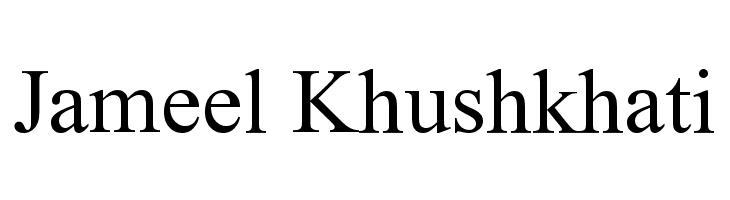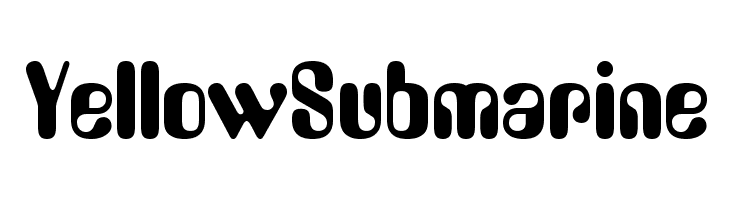
A bold, pixelated font with a retro, video game-inspired style.
A bold, playful font with a hand-drawn, slightly irregular style.
A modern, light sans-serif font with a clean and minimalist design.
A playful, casual handwritten font with dynamic, irregular strokes.
A bold, playful font with a 3D shadow effect and dotted texture.
A playful, hand-drawn font with rounded, consistent strokes and a casual style.
A playful and whimsical font with characters in circular shapes.
An elegant and flowing script font with intricate swirls and loops.
A bold, impactful font with strong, uniform characters.
A modern, geometric sans-serif font with clean lines and uniform stroke width.
A bold, high-contrast font with dramatic, theatrical styling.
A bold, flowing script font with a lively, handwritten style.
A bold Blackletter font with shadow effects, featuring intricate, angular designs.
A bold, brush-style font with a hand-painted, expressive look.
A bold, rounded font with a playful and approachable style.
A tall, narrow font with a bold, modern appearance and tight spacing.
A bold, playful font with rounded edges and a retro-modern style.
A modern serif font with elegant, elongated serifs and balanced letterforms.
A bold, condensed font with a modern and cohesive design.
A casual, handwritten font with a personal and informal style.
A geometric, Art Deco-inspired font with sleek, angular lines.
A playful, rounded font with a friendly and approachable style.
A bold, angular font with a futuristic and tribal aesthetic.
A modern, geometric sans-serif font with clean lines and uniform strokes.